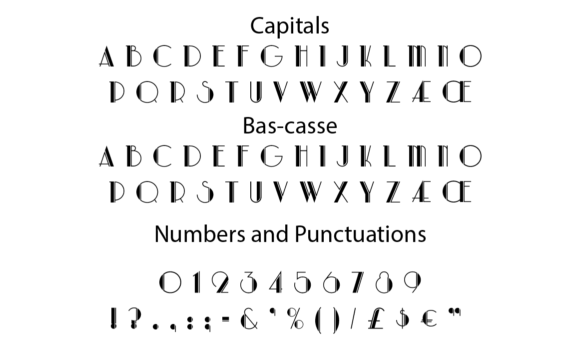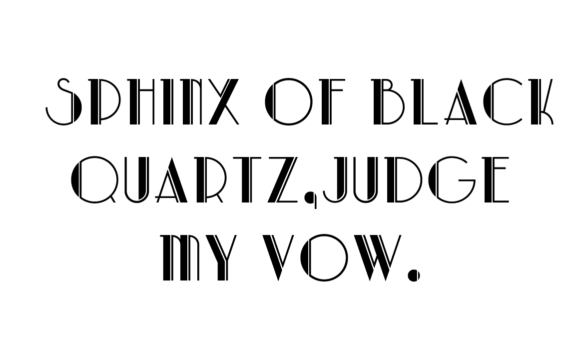
Introducing 20’Siecle Font: A Timeless Classic for Vintage Projects
The 20’Siecle font is a stunning typeface inspired by the iconic mid-century fonts that defined an era. This beautiful font is perfect for designers and crafters looking to add a touch of vintage charm to their projects. In this article, we’ll explore the world of 20’Siecle font, its features, and how it can elevate your designs to new heights.
The Inspiration Behind 20’Siecle Font
20’Siecle font draws inspiration from the mid-century modern design movement, which emerged in the 1950s and 1960s. This design era was characterized by clean lines, simple shapes, and a focus on functionality. The fonts from this period, such as Helvetica and Futura, have become synonymous with modern design. 20’Siecle font takes cues from these classic typefaces, reimagining them with a unique twist.
Key Features of 20’Siecle Font
So, what makes 20’Siecle font stand out? Here are some of its key features:
- Mid-century modern aesthetic: 20’Siecle font embodies the spirit of mid-century modern design, with clean lines, simple shapes, and a retro flair.
- Highly legible: The font’s clear and concise design makes it highly legible, even at smaller sizes.
- Versatile: 20’Siecle font is perfect for a wide range of projects, from advertising and branding to packaging and signage.
Perfect for Vintage Projects
20’Siecle font is ideal for designers and crafters working on vintage-inspired projects. Whether you’re creating a retro-style advertisement, a vintage-themed invitation, or a distressed logo, this font will add a touch of authenticity to your design. The font’s mid-century modern aesthetic will transport your audience back in time, evoking feelings of nostalgia and sophistication.
Use Cases for 20’Siecle Font
So, how can you use 20’Siecle font in your projects? Here are some ideas to get you started:
- Advertising: Use 20’Siecle font to create eye-catching advertisements that evoke a sense of nostalgia and glamour.
- Branding: Add a touch of vintage charm to your brand’s logo or packaging with 20’Siecle font.
- Signage: Use this font to create eye-catching signs and posters that grab attention.
- Packaging: Add a retro flair to your product packaging with 20’Siecle font.
Tips for Using 20’Siecle Font
To get the most out of 20’Siecle font, here are some tips to keep in mind:
- Experiment with sizes: 20’Siecle font looks great at a range of sizes, from large display fonts to smaller body text.
- Play with colors: Try pairing 20’Siecle font with bold, bright colors to create a striking visual effect.
- Mix and match: Combine 20’Siecle font with other fonts to create a unique and interesting typography.
| Font Name | 20’Siecle Font |
| Author | hamelinckmichael |
20’Siecle font is a beautiful and versatile typeface that’s perfect for designers and crafters looking to add a touch of vintage charm to their projects. With its mid-century modern aesthetic, high legibility, and ease of use, this font is sure to become a staple in your design toolkit. Whether you’re working on a retro-style advertisement, a vintage-themed invitation, or a distressed logo, 20’Siecle font is the perfect choice. So why wait? Download 20’Siecle font today and start creating stunning designs that evoke the glamour of a bygone era!